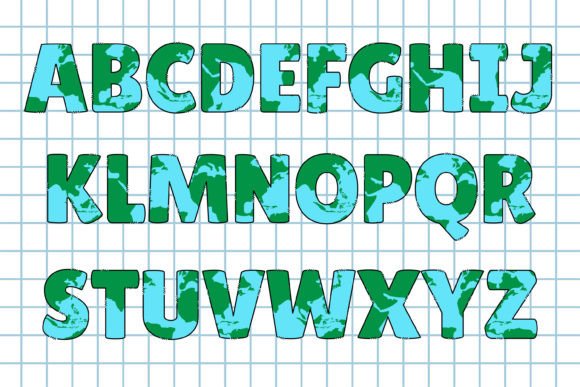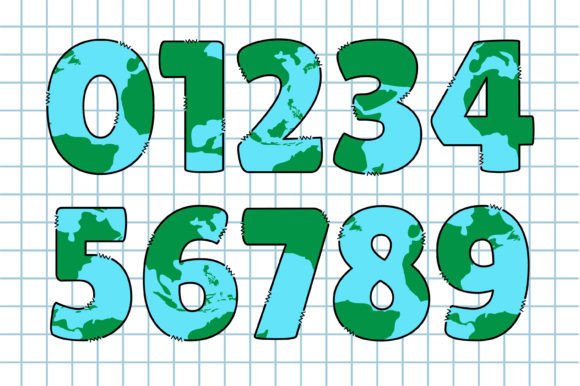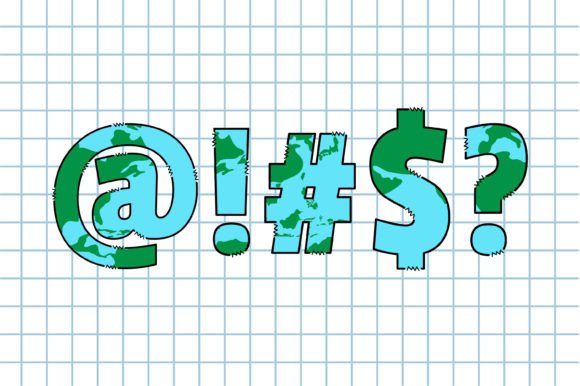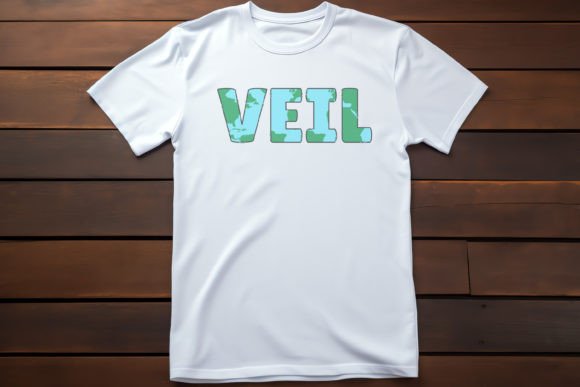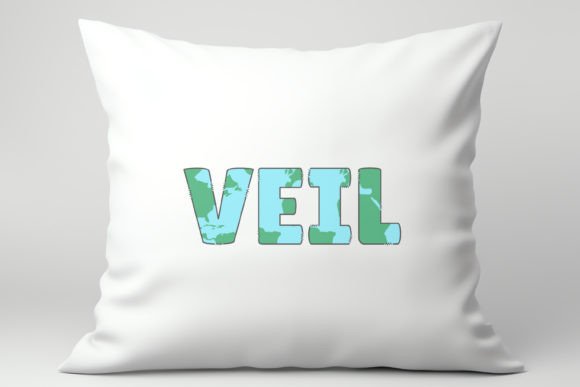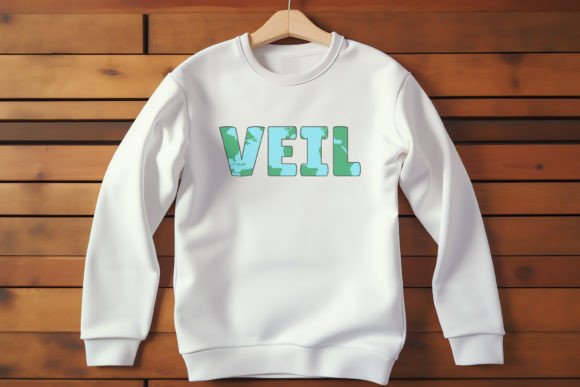
The Ultimate Guide to Globe Font: Adding a Playful Touch to Your Designs
I’ll never forget the time I was working on a project for a children’s birthday party invitation. I had the design concept nailed, but something was missing – the perfect font. I scoured the internet, tried out countless fonts, but none seemed quite right. That was until I stumbled upon Globe Font. It was love at first sight! 🎉 The playful, artistic vibe it brought to my design was exactly what I needed. In this article, I’ll share my experience with Globe Font, its features, and how to make the most of it in your creative projects.
An Honest Review of Globe Font
What I Love About Globe Font
- ✨ Playful and Artistic Feel: Globe Font is designed to convey a fun and artistic vibe, making it perfect for creative projects.
- ✅ Easy to Read: Despite its playful nature, Globe Font remains easy to read, even in smaller sizes.
- 🌈 Color Font: Globe Font comes in a range of colors, adding an extra layer of creativity to your designs.
While Globe Font is an amazing addition to any design project, there are a few things to keep in mind:
- 🤔 Limited Use Cases: Globe Font may not be the best choice for formal or professional projects, as its playful nature may not be suitable for these types of designs.
- ⚠️ Color Limitations: While Globe Font comes in a range of colors, some platforms may not support color fonts, so be sure to check compatibility before use.
The Backstory of Globe Font
Globe Font was designed with the intention of creating a playful, artistic font that would bring a smile to users’ faces. The designer wanted to create a font that would be perfect for creative projects, such as invitations, posters, and social media graphics. With its bold, colorful design, Globe Font is sure to add a fun touch to any project.
Q: What type of projects is Globe Font best suited for?
A: Globe Font is perfect for creative projects, such as invitations, posters, social media graphics, and more.
Q: Is Globe Font easy to read?
A: Yes, Globe Font is designed to be easy to read, even in smaller sizes.
Q: Does Globe Font support OpenType features?
A: Yes, Globe Font supports OpenType features, including stylistic alternates and glyphs.